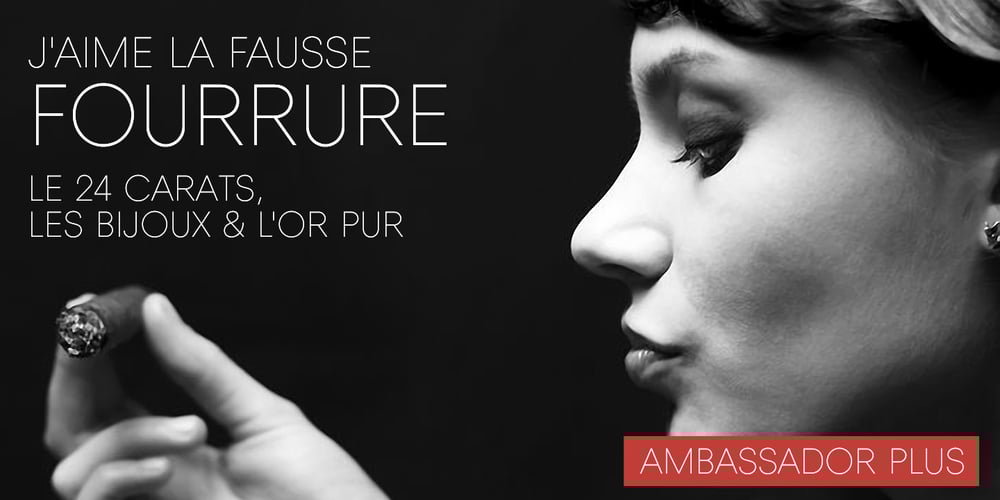
Ambassador Plus Font Family was designed by Juraj Chrastina and published by Juraj Chrastina. Ambassador Plus contains 4 styles and family package options. Hairline display fonts are elegant and subtle with touch of luxury. They are the Champagne of type. Ambassador Plus Family represents a set of classy typefaces best suitable for magazines, cosmetics packaging, advertising or any kind of fine and sensitive design. The quality of spacing and kerning ensured by Igino Marini.